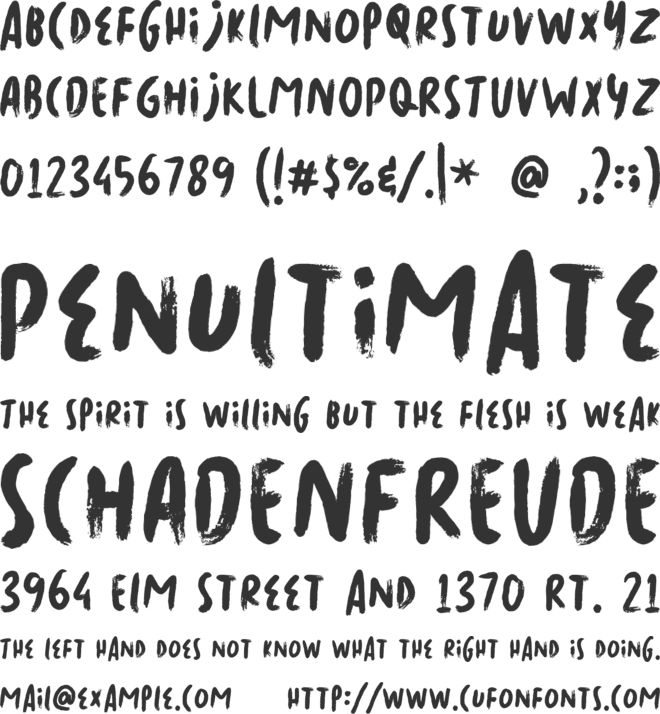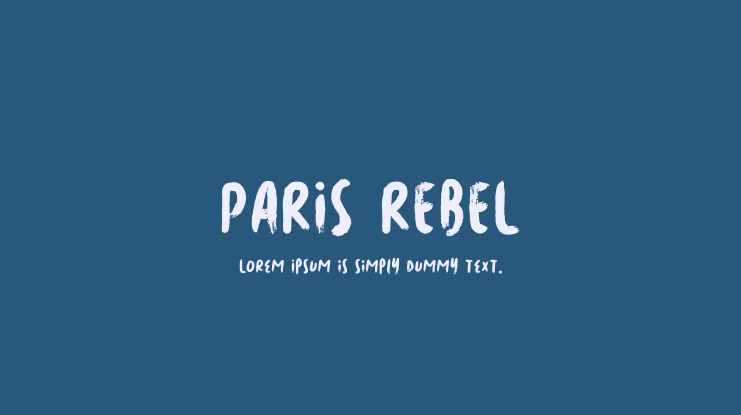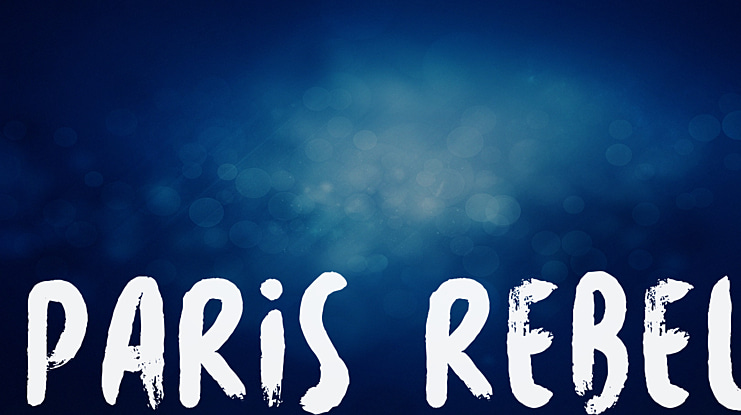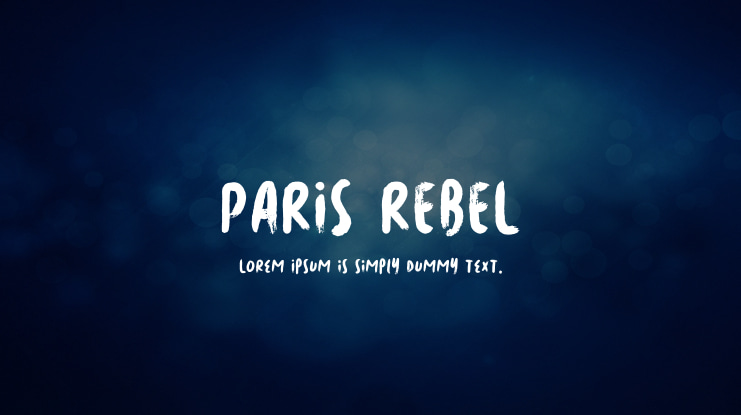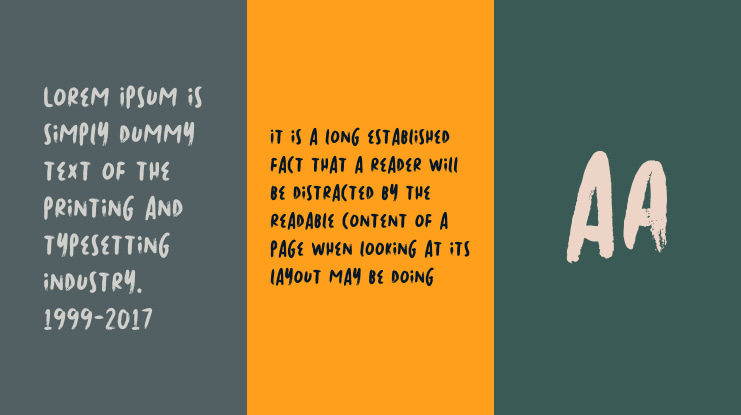
PARIS REBEL Font
PARIS REBEL is a youthful and fun font with organic look brush. This Eye-catching font will be perfect for medium and large display, but also work for smaller paragraph lines. You can use this font for flyer, poster, logo, social media post, advertising, website headline, and etc.
Features:
-All caps font with lower case alternative
-Use uppercase (caps) for standard character and lowercase for alternative, combine them to create awesome look!
-Complete standard display characters including ;  À Ä Å Ã Æ Ç É Ê È Ë Í Î Ì Ï Ñ Ó Ô Ò Ö Õ Ø Œ Š Ú Û Ù Ü Ý Ÿ